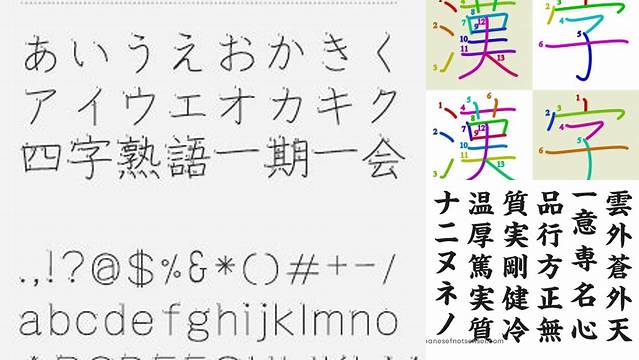
Free Kanji Stroke Order Fonts: Download & Learn!
Hey guys, are you ready to dive into the awesome world of kanji? Learning kanji can seem like a mountain to climb, but trust me, it's totally doable! One of the coolest and most helpful tools you can use is a kanji stroke order font. These fonts show you exactly how to write each character, stroke by stroke. Imagine having a personal tutor right on your computer! And the best part? You can find many kanji stroke order fonts free download options out there. Let's explore how these fonts can supercharge your kanji learning journey and where you can grab them!
H2: Understanding the Magic of Kanji Stroke Order
Alright, before we get into the nitty-gritty of free downloads, let's talk about why stroke order is so important. Think of writing kanji like following a recipe. Each stroke is an ingredient, and the order you add them in affects the final dish (or in this case, the character!). Correct stroke order not only makes your kanji look beautiful but also makes it easier to remember them. It helps with muscle memory, making the writing process more natural and intuitive. When you learn the proper stroke order, your brain creates a sort of mental map of the character. This map helps you recall the kanji and speeds up your writing ability. Incorrect stroke order, on the other hand, can lead to messy characters that are harder to recognize and memorize. It can also make it difficult to look up characters in dictionaries or online resources. Many beginners often overlook stroke order, thinking it’s just a formality. However, mastering it from the beginning is a game-changer! It's like building a house. If you don't have a strong foundation, the whole structure is likely to crumble. Proper stroke order forms the base of your kanji writing skills. When you get it right, it provides a consistent flow for you to create, and improves your understanding and memory of the characters. Many people start writing kanji, feeling like they're guessing at the strokes, and this is where stroke order fonts come in handy. They show you exactly how to approach each character in a logical and systematic way.
H2: Why Use a Kanji Stroke Order Font?
So, why should you bother with a kanji stroke order font free download? Well, think of it this way: you wouldn't try to learn to play the piano without knowing where the keys are, right? Kanji stroke order fonts do the same thing for writing characters! They show you the path your pen or pencil should take. This can be extremely helpful if you’re a beginner. If you're self-studying, it can be even more essential, because you don't have a teacher to correct you. It will give you confidence and will enhance your writing. One of the biggest advantages is visualization. The fonts visually represent the stroke order. They show you how each stroke flows into the next. Also, by using stroke order fonts, you can learn from the ground up. You don't pick up bad habits. These fonts are a great way to practice writing kanji. If you're a visual learner, a stroke order font is basically a lifesaver. You can trace the characters, which helps solidify the strokes in your muscle memory. Some fonts even have the strokes animated, so you can literally watch how a character is written. With animated fonts, you can rewind and replay as many times as you need. Using a stroke order font will improve your speed. The more you practice with correct stroke order, the faster you'll become at writing. Over time, your hand will remember the sequences, and you'll be able to write kanji automatically, which makes the experience easier.
H3: Benefits for Beginners
For those just starting their kanji journey, a kanji stroke order font free download is pure gold. It’s like having a personal instructor that will guide you through the first steps. First of all, beginners need to establish a solid foundation and using a stroke order font helps you do that from day one. Without this, the kanji will look messy and chaotic. This confusion also results in slower progress. With a stroke order font, you can build muscle memory. As you repeatedly write the kanji following the correct strokes, your hand will start to remember the sequence. This is so important. Another benefit is the immediate feedback it provides. If you have a hard time remembering, simply refer back to the font and it will instantly solve your problems. Many free stroke order fonts are designed to be easy to use and understand. You can often download them and install them with just a few clicks. This makes it accessible for anyone, regardless of their technical skills. Beginners can also utilize these fonts to practice at any time, and any place. You can open the font on your computer, tablet, or even print out the characters to practice on paper. Plus, many of these fonts also include the meaning and pronunciation of the kanji, which makes them more helpful.
H3: Advantages for Intermediate Learners
Even if you're not a complete newbie, a kanji stroke order font free download can still be super useful! Intermediate learners can often find themselves making small mistakes with stroke order. These mistakes become habits, which can slow down your writing and make your kanji look less polished. An excellent thing is that the fonts can help you fix any bad habits. When you review the correct stroke order, you can identify and correct any lingering errors. They’re also fantastic for learning new kanji and reinforcing your knowledge of old ones. If you're learning new kanji, using a stroke order font will help you learn the character quickly. Also, when encountering a new kanji, you can review the stroke order. This will make it easy to remember the character's shape. The advantages of this are clear. Stroke order fonts are also very handy for creating your own study materials. You can use the fonts to create flashcards, worksheets, or any other resources that will help you study. You can copy the kanji and include stroke order arrows to show you how to write each character.
H3: Font Archives and Repositories
Font archives and repositories are a treasure trove for finding a kanji stroke order font free download. Websites like DaFont, FontSpace, and 1001 Fonts offer a wide selection of fonts, often including kanji stroke order fonts. These sites usually have a search function where you can quickly filter for kanji or Japanese fonts. This makes finding exactly what you need super easy. Many archives provide previews of the fonts, allowing you to see what the stroke order looks like before you download. This helps you pick the font that best suits your needs. The preview might even include example sentences with the kanji written in that font. The user-friendly interface of these sites makes it easy to download and install the fonts. Generally, you download a ZIP file containing the font files. You can then simply install the fonts by opening the file and following the instructions. Font archives are great, because they are reliable. Many of them carefully screen the fonts to ensure they are safe and virus-free. Just to be safe, you should always scan downloaded files for viruses before installing them. And there’s also the licensing aspect. Font archives will clarify the licensing terms for each font, which is useful if you plan to use the fonts for commercial purposes.
H3: Software and Applications
Some software and applications also provide kanji stroke order fonts as a built-in feature or as an optional download. Many Japanese language learning software programs will include stroke order fonts. Applications like Anki (flashcard software) and Memrise (language learning platform) may offer stroke order fonts, so you can easily incorporate kanji writing practice into your study routine. These integrated fonts ensure a cohesive learning experience. Software like these may also include interactive exercises that will help you practice stroke order. These exercises provide instant feedback and make learning more engaging. Also, some applications also offer customization options. You might be able to change the font size, color, or other aspects of the font to suit your preferences. If you are using these applications, you can learn at your own pace. Many of these are available for both computers and mobile devices, so you can practice kanji anytime, anywhere. These applications are a convenient way to access and utilize kanji stroke order fonts.
H2: Final Thoughts: Start Writing Kanji Today!
Alright, folks! You have all the tools you need to start writing kanji like a pro. Remember, getting a kanji stroke order font free download is just the first step. The real magic happens when you start using it consistently, practice regularly, and combine it with other resources. So what are you waiting for? Go ahead and explore the different font options, download a few that catch your eye, and start practicing! Learning kanji may seem challenging at first, but with the right tools and a little dedication, you'll be writing like a native speaker in no time. Happy learning, and have fun with it! ĺŠ ć˛ą (Ganbatte!) – do your best!